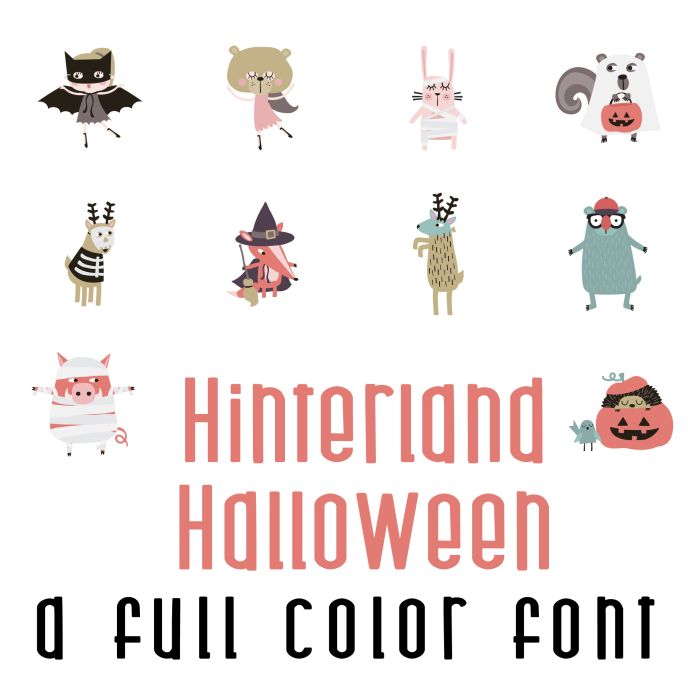
This fun full color font features 26 whimsical forest animals ready for Halloween perfect for the holiday, gifts, cards, crafts, decor, parties, classrooms, planner stickers, scrap book pages and more!